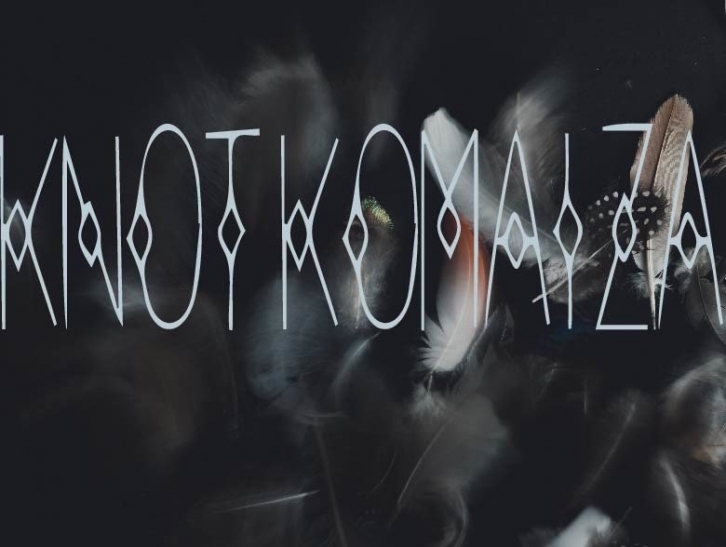
Knot Komaiza is an incredibly cool and uniquely designed decorative font. No matter the topic, this font will be an incredible asset to your fonts’ library, as it has the potential to elevate any creation.